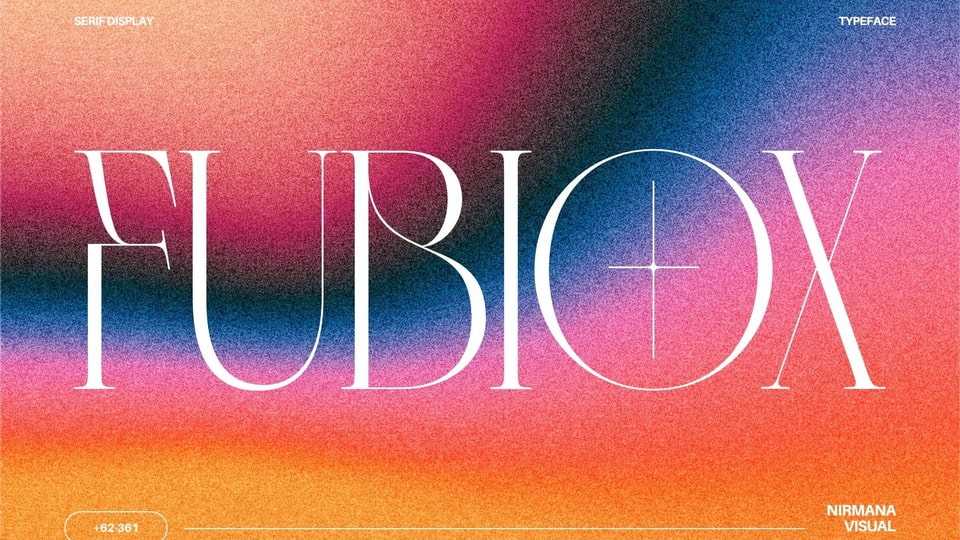
Download Fubiox font, a contemporary serif typeface, designed to bring sophistication and grace to your designs. Inspired by the elegance of classic typography and the beauty of calligraphy, Fubiox font exudes a sense of refined aesthetics.